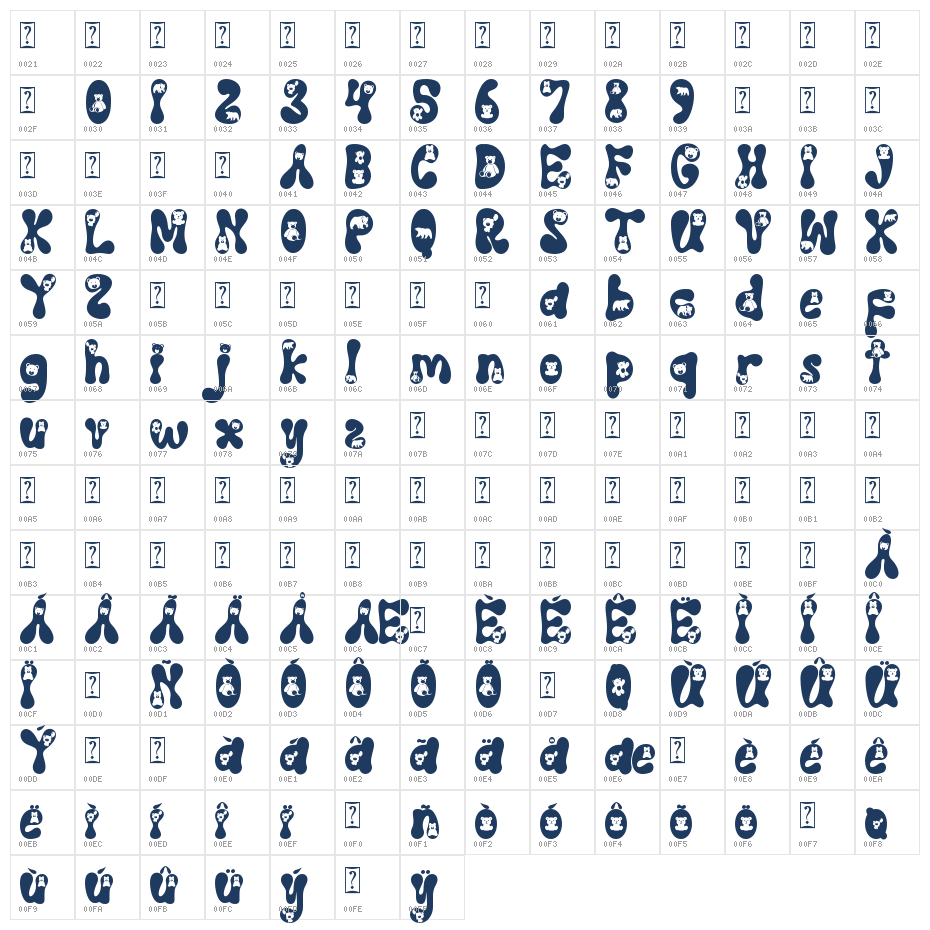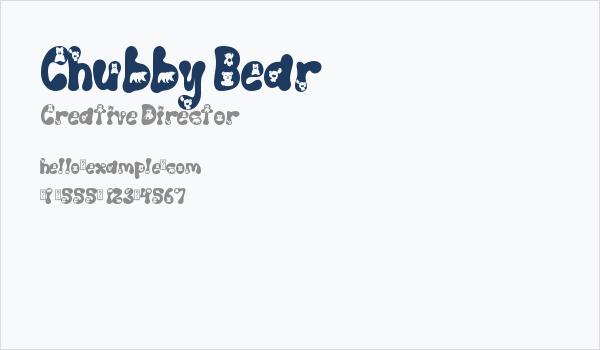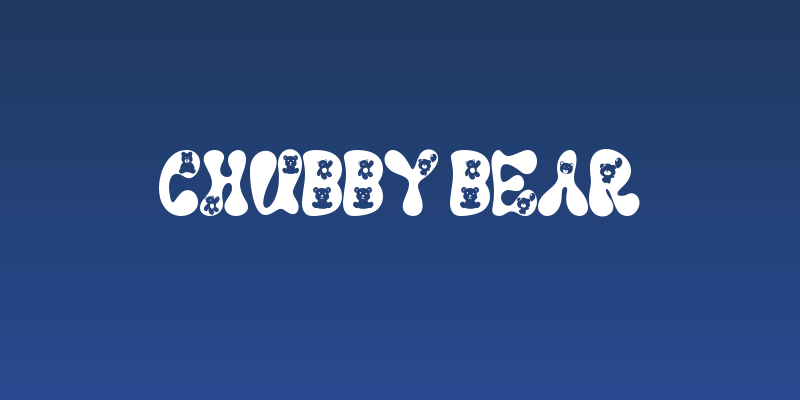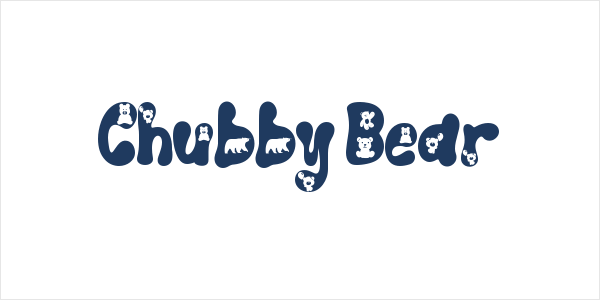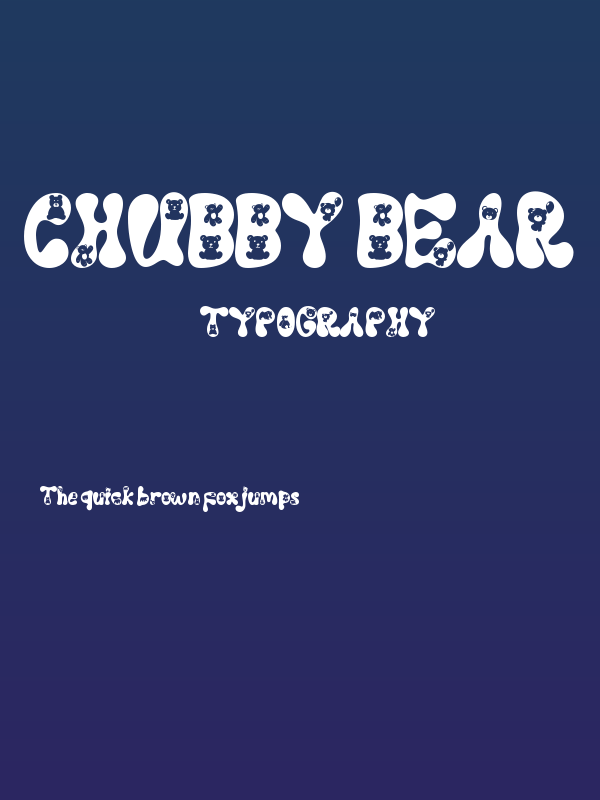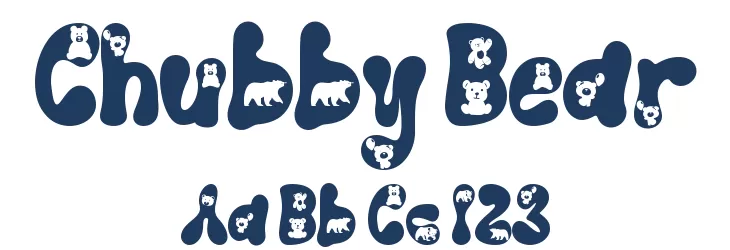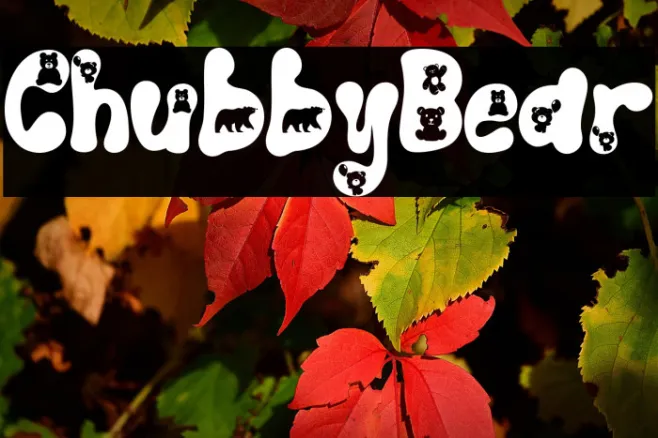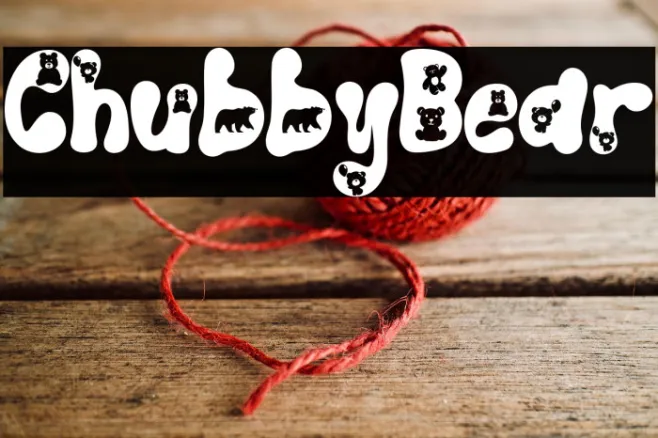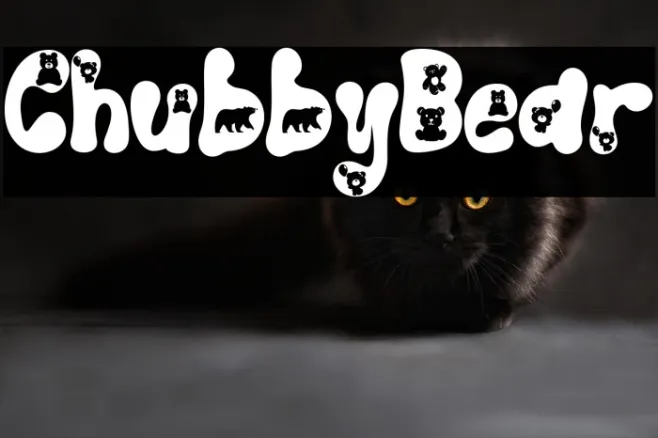
Chubby Bear Font
Chubby Bear Description
A playful, rounded display font featuring bear illustrations integrated into each character, creating a cute and whimsical appearance.
Chubby Bear
| Overall Style | Whimsical, Playful, Cute |
| Use Case | Headlines, Logos, Children's products, Posters |